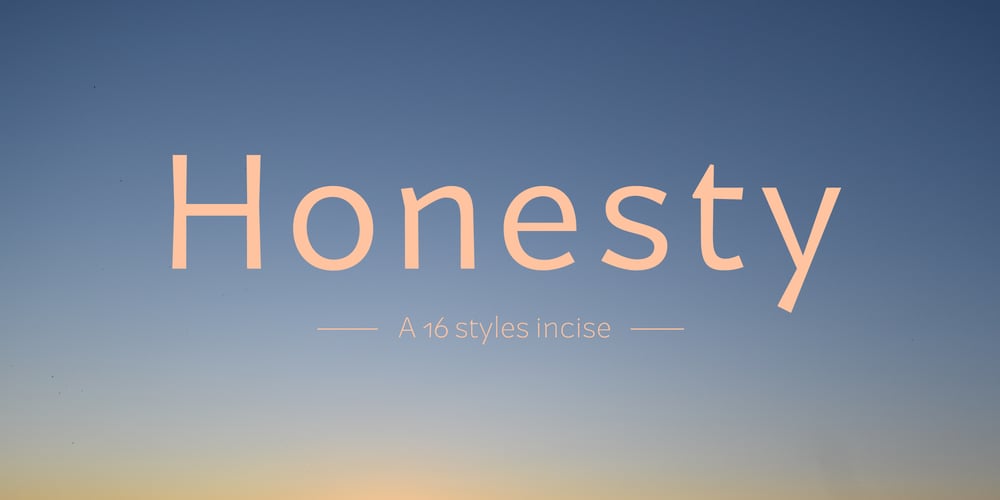
Honesty
Honesty font
Honesty Font Family was designed by Océane Moutot and published by Océane Moutot. Honesty contains 16 styles and family package options. Honesty is sans serif font with flared stems. As such, it belongs to the incise genre which is historically inspired by the roman civilisation and letters carved in granite or marble. One of the major example of it is the Trajan’s Column in Rome which inspired a font called Trajan, designed by Carol Twombly in 1989. Honesty is also inspired by more brutal font such as the Albertus, designed in 1938 by Berthed Wolpe, and its shape is highly influence by the work of the hammer. Despite this brutality and urgency due to the carving technique, the design of Honesty bring softness to it thanks to its low contrast and smooth curves.Honesty’s design include 16 styles, from thin to black in roman and italic.